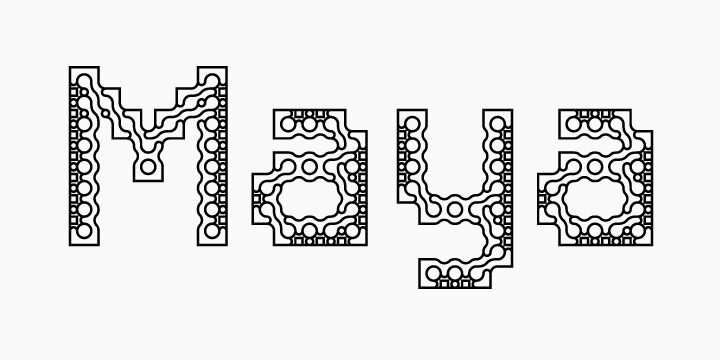
Letrix is a hyper-experimental family, a different kind of variable font. Taking ornamentation to the main stage, Letrix needs large sizes to show its details. A Processing-coded software draws its glyphs using modular dingbats (internal/external sides and corners) designed by the coders. The letters are crafted on Illustrator and Glyphs for optimization, type adjustments, and exporting. All fonts have the same structure with different finishes. Bold, condensed, or italic variants are thrown away for the dingbat drawing defines the spirit of the font. This is the first of 20 styles, a small sample of the potential outcomes. With over 500 pieces, the dingbat set is constantly growing, expanding the mixing possibilities. Sometimes vigorous, sometimes ethereal, Letrix is an invitation to the fun. Monica Rizzolli, Tony de Marco.
Letrix 2
Monica Rizzolli, Tony de Marco